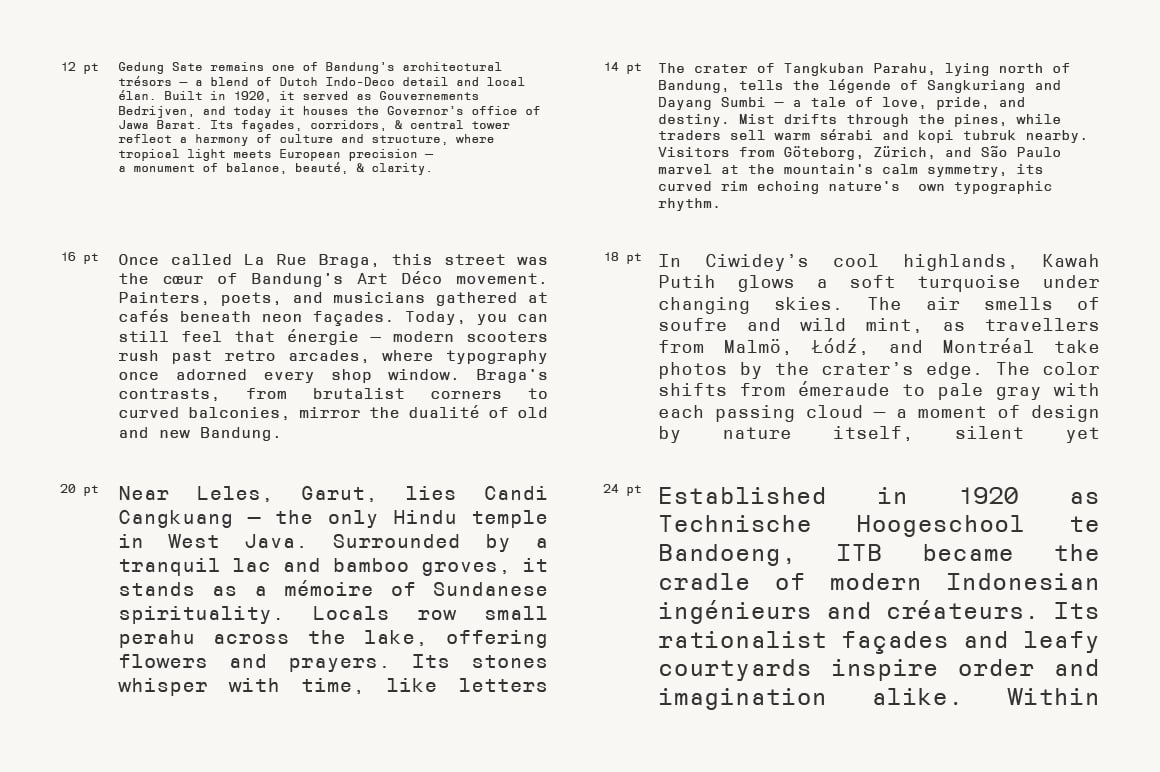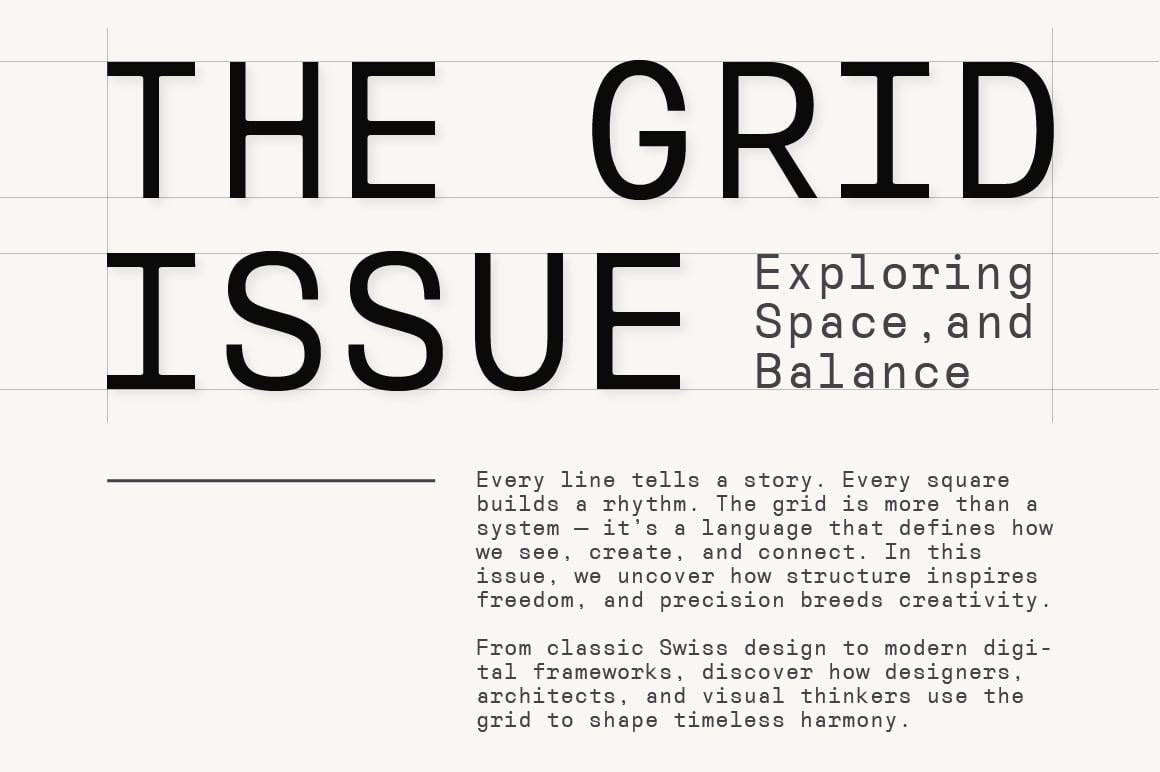
Reflow Mono — Editorial Fixed-Width Typeface Font
Reflow Mono — Editorial Fixed-Width Typeface Font is a versatile typeface ideal for various projects, including logos, branding, posters, blog headers, advertisements. Designed by Zippieletras, it brings a distinctive character to every project. The free version includes a full set of uppercase and lowercase letters, available in OTF format.